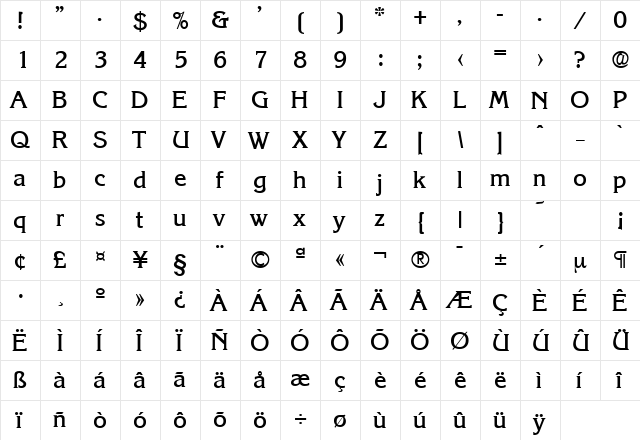
Korinth-Serial-Medium Regular
Design Context for Korinth-Serial-Medium Typeface
Korinth-Serial-Medium takes a measured approach to typography — its balanced proportions and neutral character make it a reliable workhorse for both digital and print work.